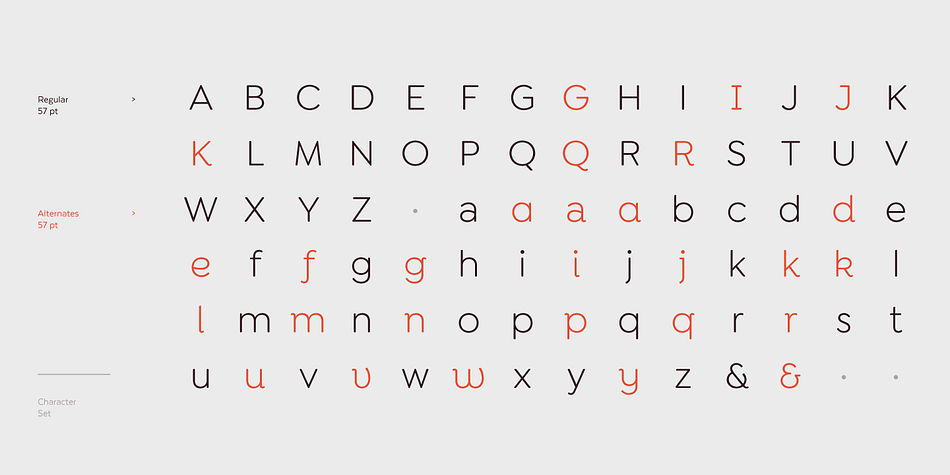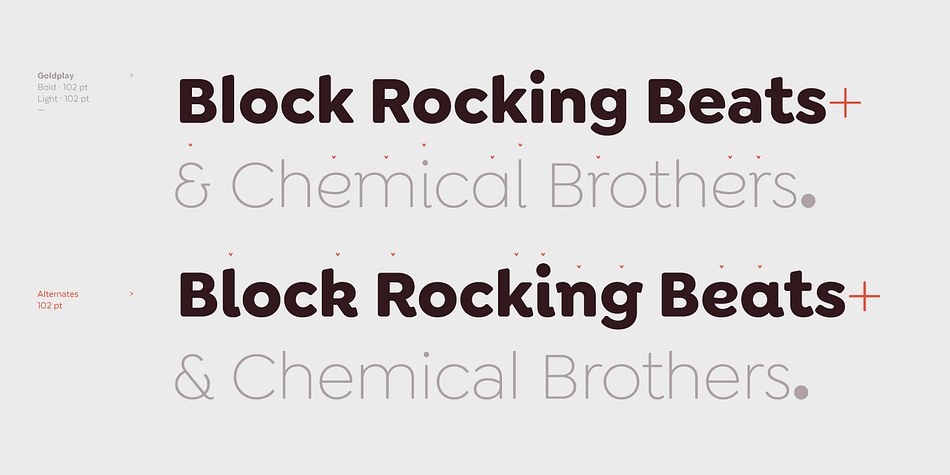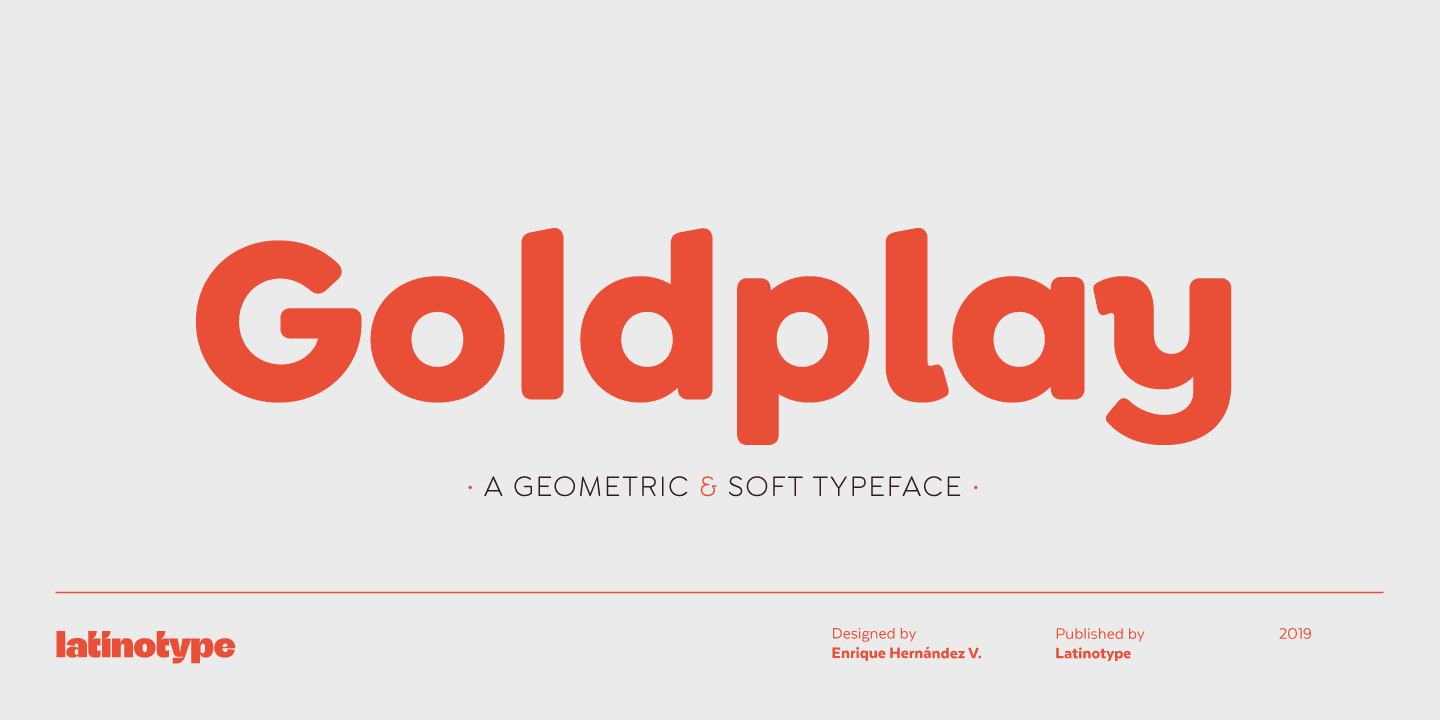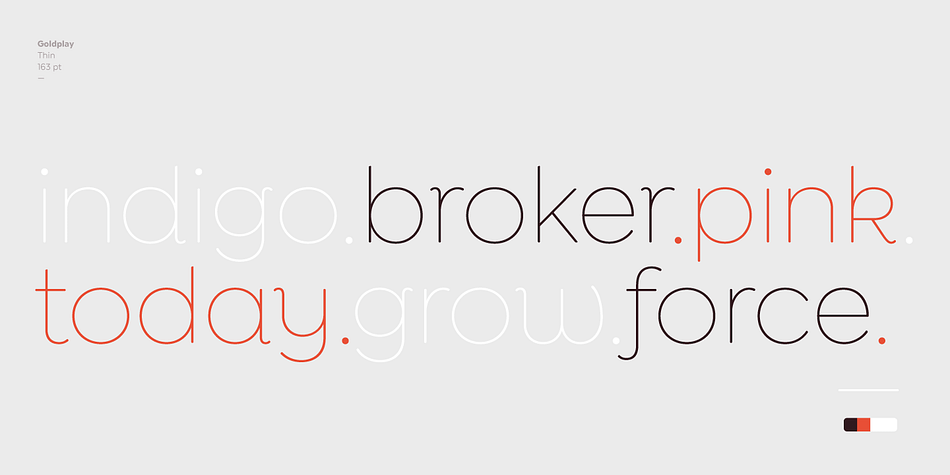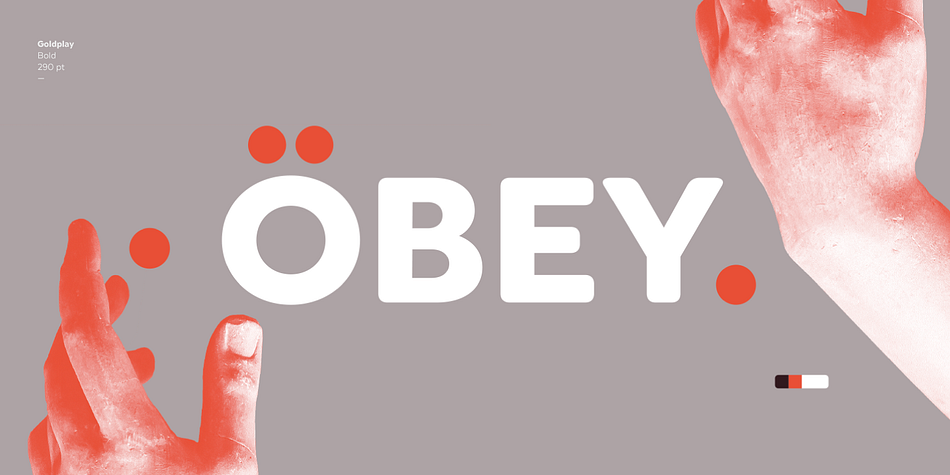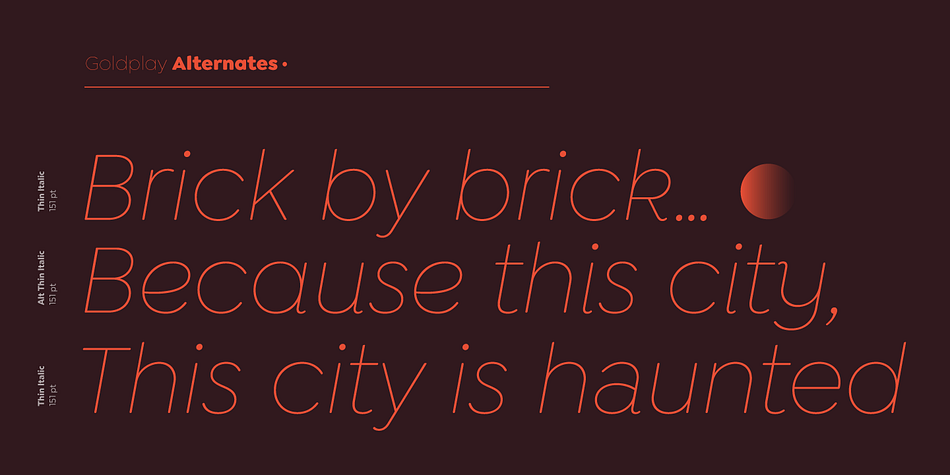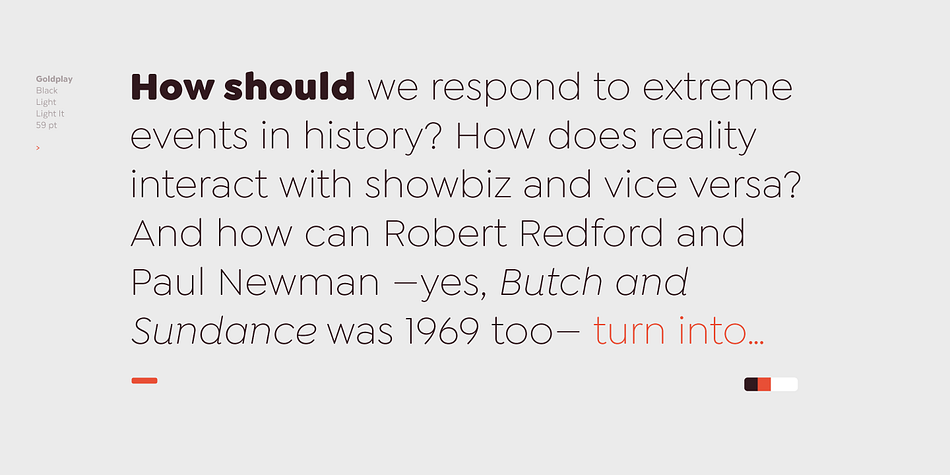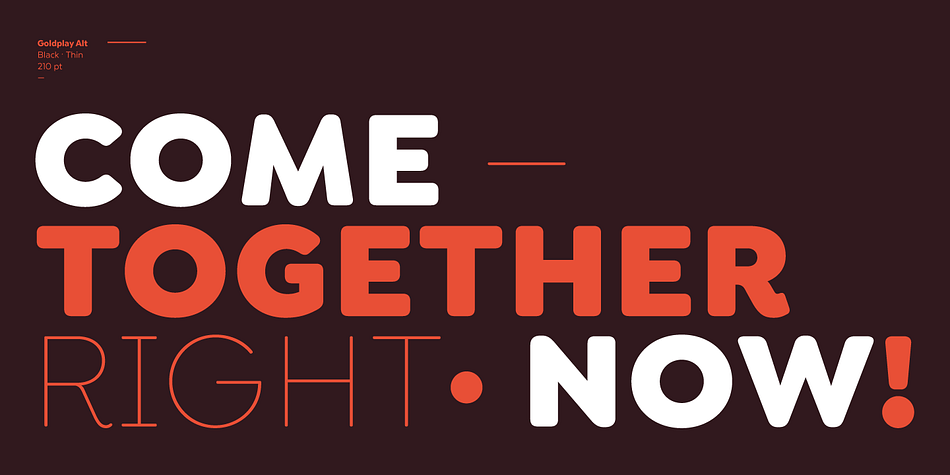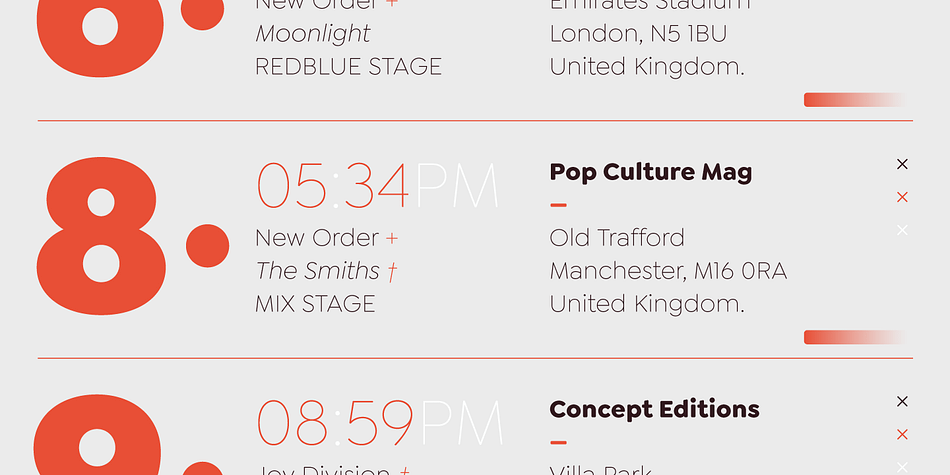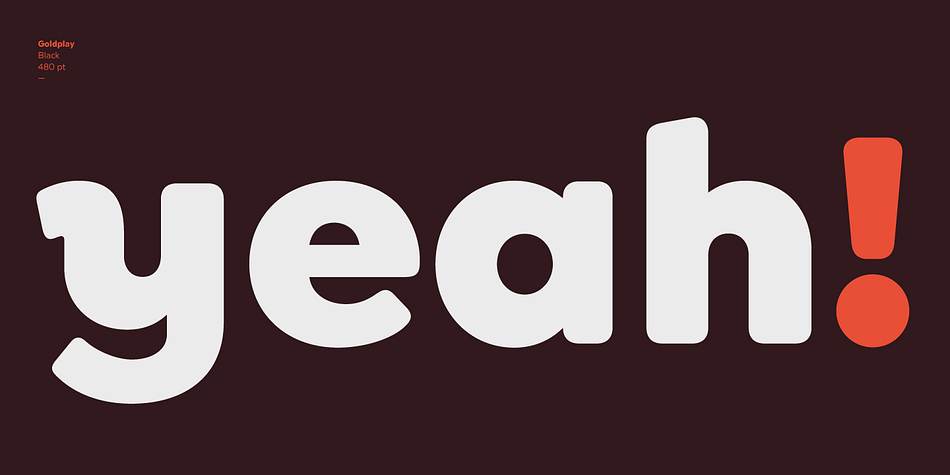
Designed by Enrique Hernandez, Goldplay is a sans serif font family. This typeface has twenty-eight styles and was published by Latinotype.
Goldplay is based on Isidora Sans design yet features rounded shapes.
Its rounded, soft terminals give it a friendly and expressive look, and its modern and contemporary style as well as its classic proportions make it an excellent choice for headlines, logotypes, branding, books, magazines, motion graphics, and use on web and Tv.
One of its key features is a large x-height which make it look elegant and classy. Goldplay comes in 2 versions—each in 7 weights, from Thin to Black, and matching italics, resulting in a total of 28 fonts.
The standard sans serif version—fresh, clean and contemporary—is a perfect choice for editorial and corporate design, headlines, books, magazines or any other piece of graphic design.
The Alt semi-serif display version—more expressive and modern—is ideal for logotypes, branding, packaging, and use on web and Tv.
Goldplay contains a set of 540 characters that support over 200 Latin-based languages.